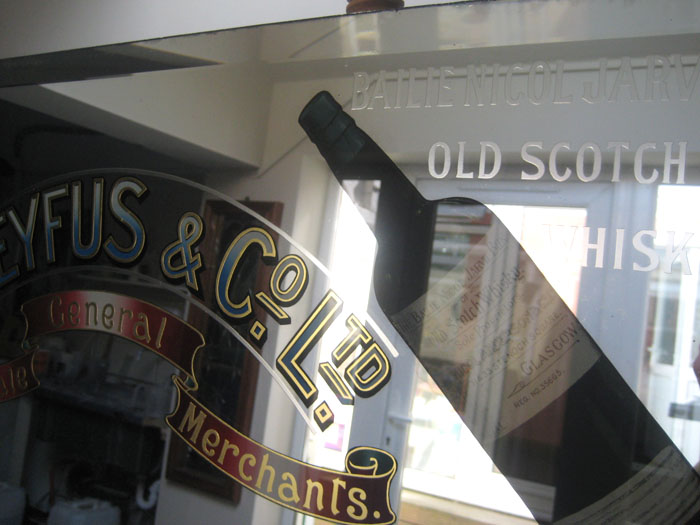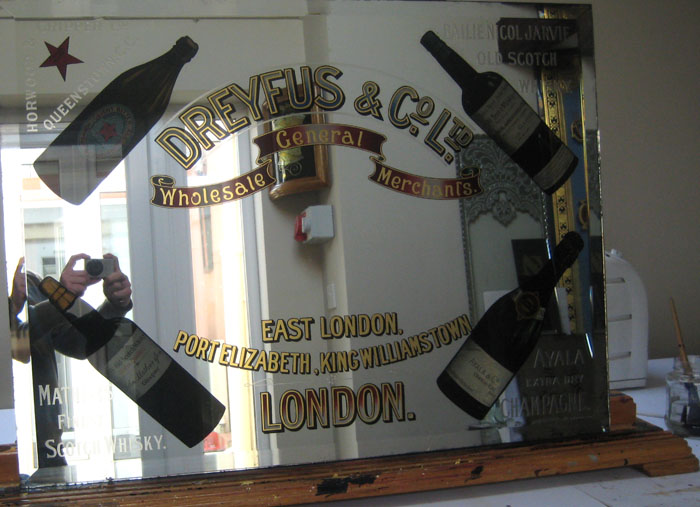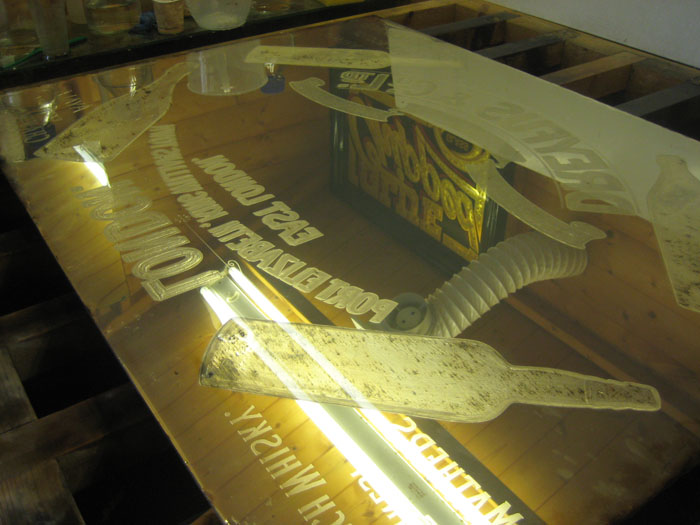
I finished restoring this glass sign yesterday. To be honest I was glad to see the last of this one as it seemed to go on forever. The paint I used to silver over works incredibly well for chemical silvering but still is nerve racking pouring it over a good few hours of gilding and signwriting . This is how it came out, I at to copy from the original photos. the graduation of colour is hand blended.
Incredible... I put up a post asking about a Pabst Beer Mirror restoration and have seen no replies from Stateside participants here. Would you be interested in such a project? I realize shipping would be painful, but I have to ask.
Oh, and nice work Dave...as usual. Those blue blended letter centers seem to be traditionally English, ey?
I would love to help you but shipping would very costly,how much restortion is needed? can you put up a pic?. Your best bet is to get hold of David Trihilo who worked for Rick at Fine Gold. He specialises in Restoration ,he is based not far from Rick's old shop ,also Robert Freise in Chicago excellent glass artist and restorer both these guy's are your best bet for your glass.I'm just to far away mate.
Yes the blends seem to be the norm on some of these earlier pieces. Lots of breweries and Distilleries had this glass look. I seen a large panel a few weeks back while in Dorchester,this mirror was huge and had been extremely well made with some great blends around acid text ,I wish I had a camera at the time so I could have shown you guy's on here. It was 12ft x 10ft and it looked like about 8ml glass . biggest one I have ever seen and in one piece.